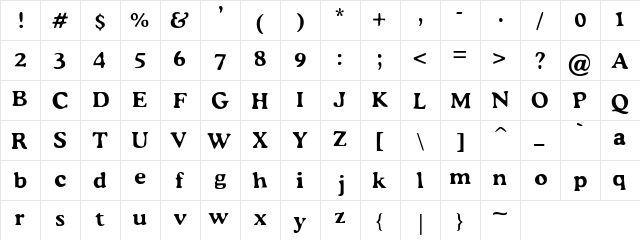
LD Typeset Regular
Design Context for LD Typeset Typeface
LD Typeset is a composed and adaptable typeface that performs quietly and consistently across a wide range of design contexts.